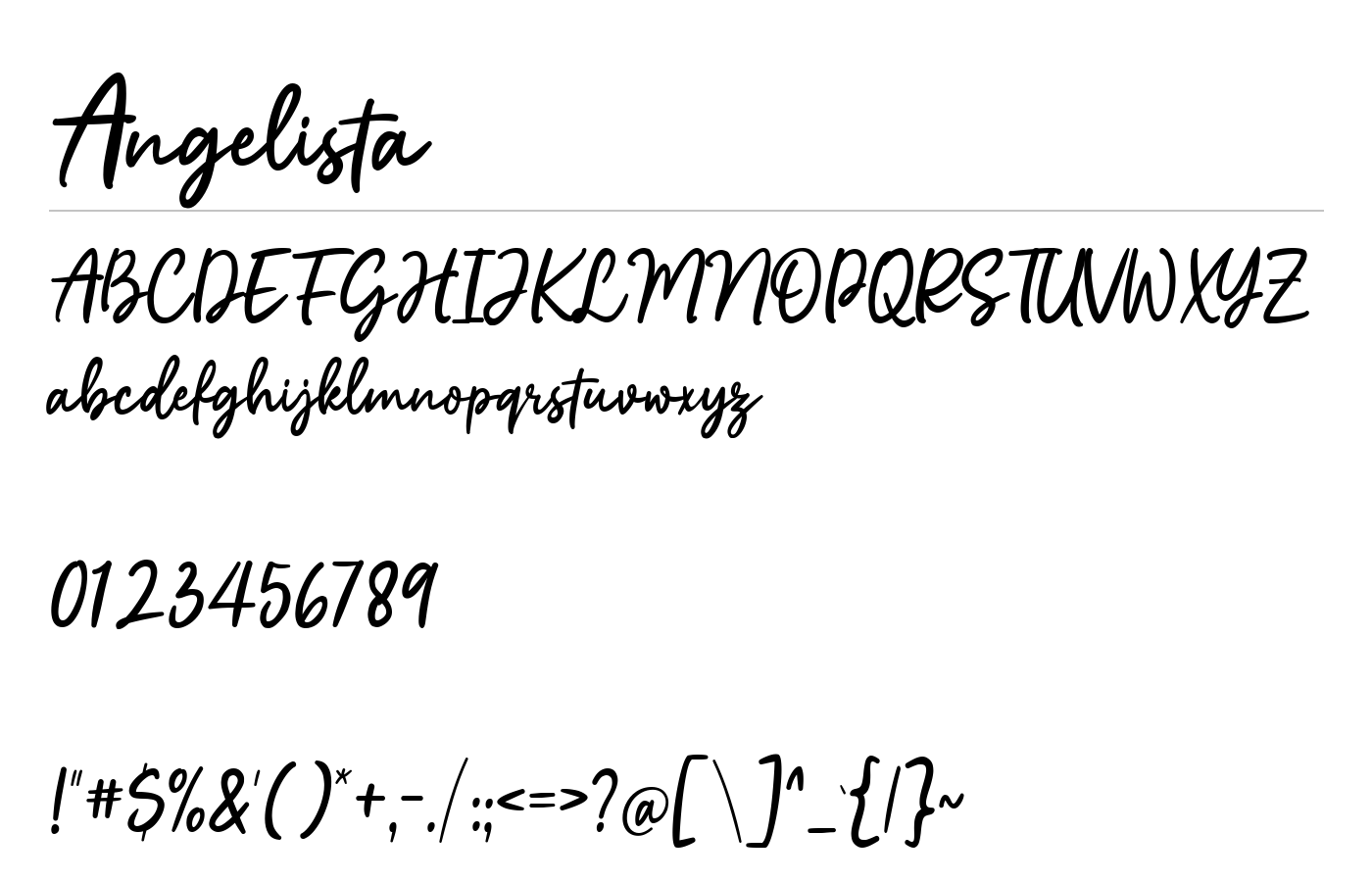
Angelista is a delicate, handwritten script font with an elegant, airy feel created by its thin strokes and flowing letterforms. Its casual yet refined style makes it perfect for personal branding, invitations, and feminine designs that seek a touch of sophistication without rigidity. This font shines in creative projects where a graceful, approachable handwriting look is desired.
Angelista Font
About Angelista Font
| Font family | Angelista Font |
| Designer | Nox Studio 2021 |